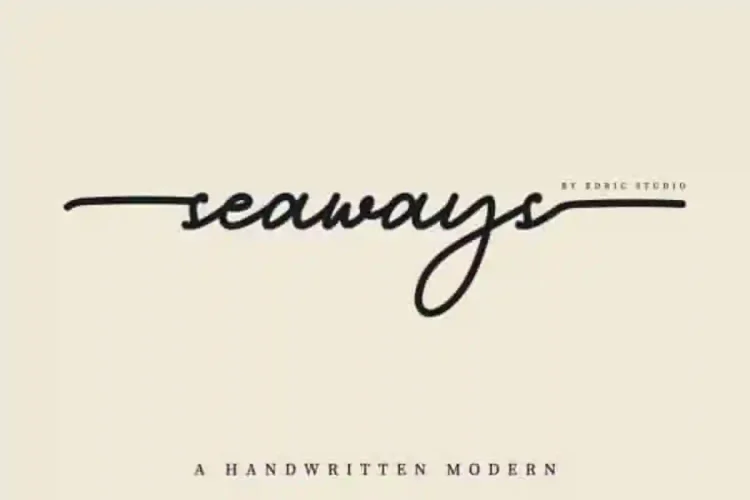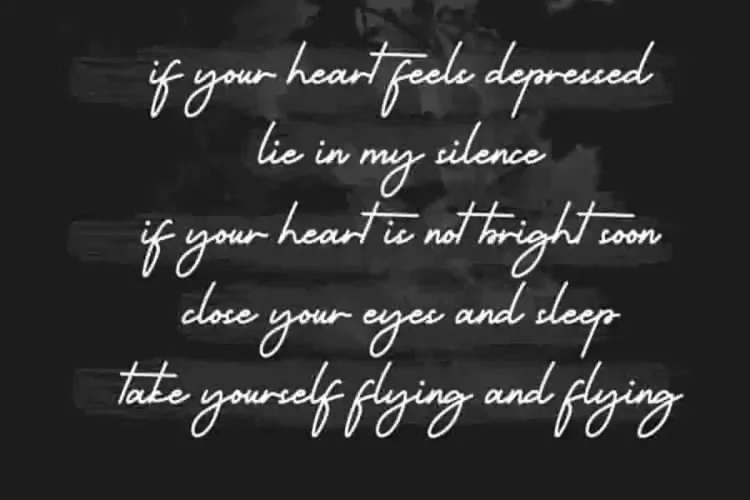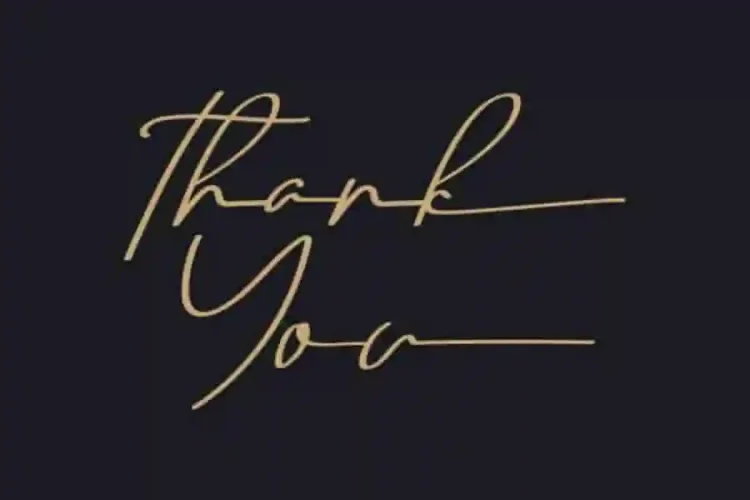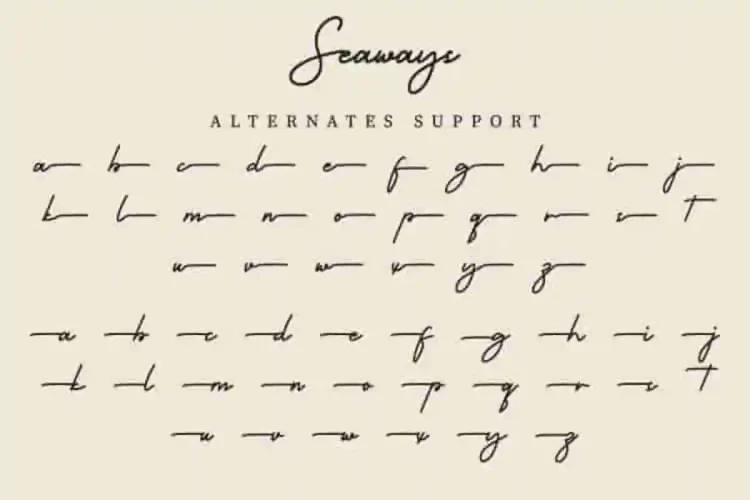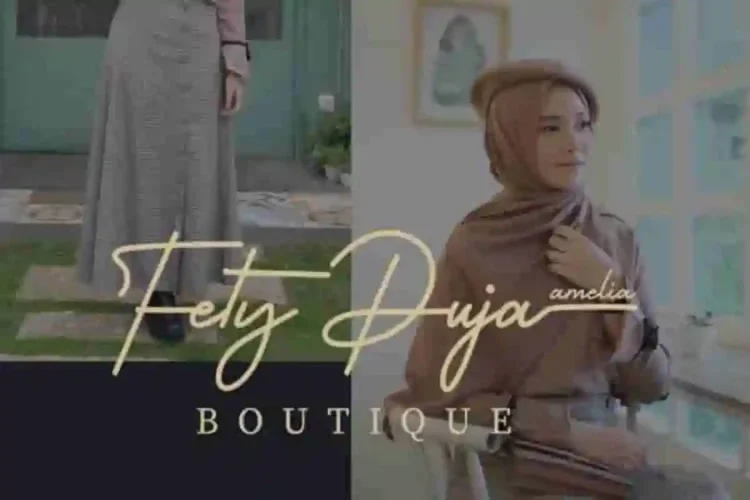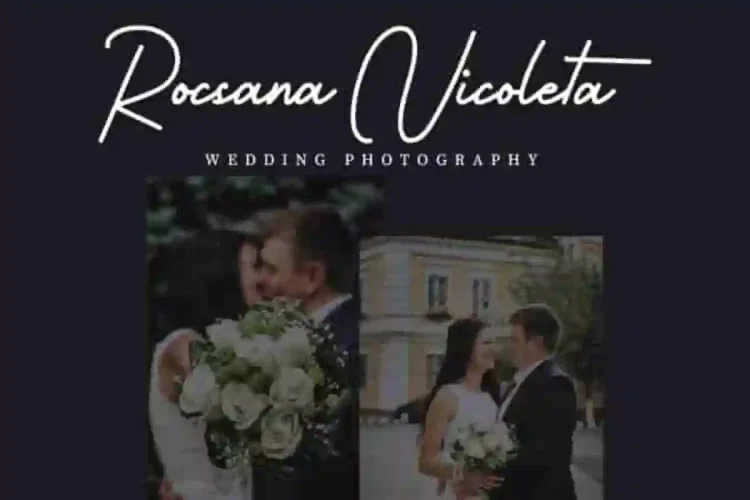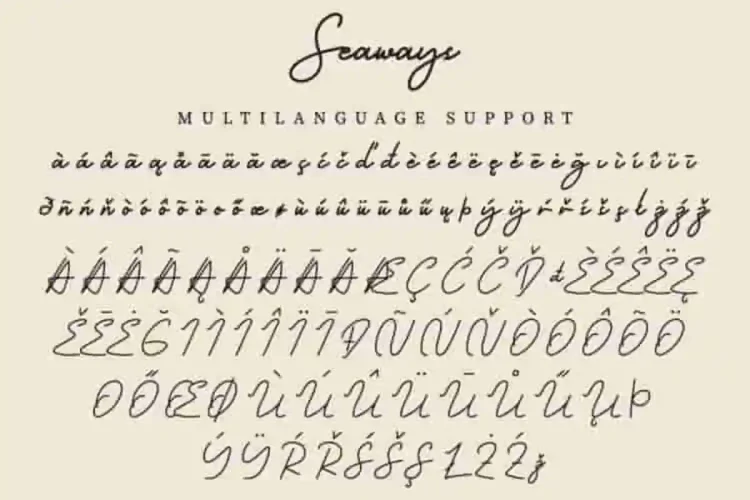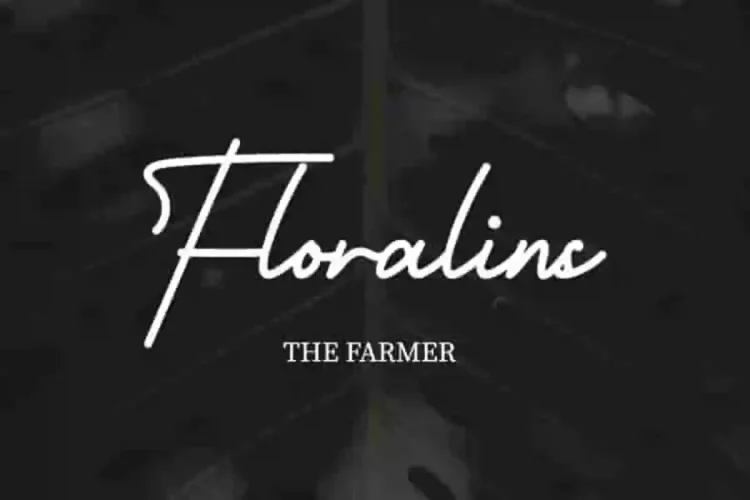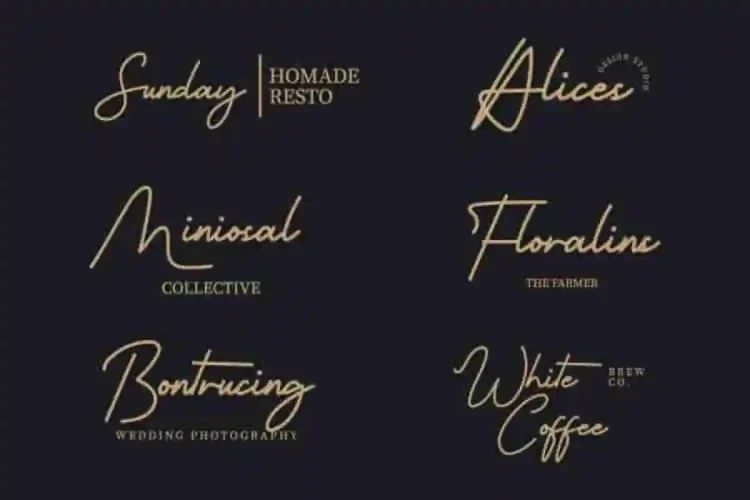
Seaways Signature Script Font
Seaways Signature Script Font is a script font family with casual handwriting signature style, handcrafted from our Studio here in, Indonesia. The designers of this beautiful typeface is Widi and Suci.
Seaways Signature Script Font is an original signature script typeface with unique natural look. It has a stunning characters set, perfectly managed with well spaced and kerning. The theme style of this font is simple. elegant,  sophisticated, stylish, clean and classic signature style.
Seaways Signature Script Font will be great for any projects (with extended license) including : branding, logo, stationery, business card, signage, flyer, brochure etc. Almost all industries will be match for this typeface: wedding, events, real estate, architect, law firm, florist, gardening, makeup artist, travel, hotel, musician etc.